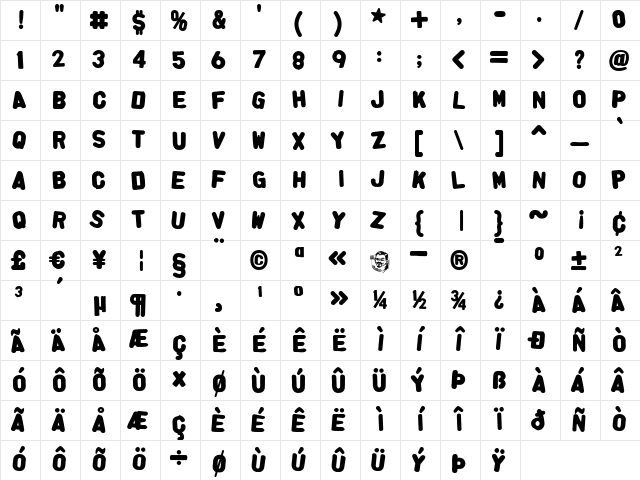
AlphaFridgeMagnetsAllCap Regular
Design Context for AlphaFridgeMagnetsAllCap Typeface
AlphaFridgeMagnetsAllCap offers clean, dependable letterforms without strong stylistic allegiance, making it a practical choice for designers who need flexibility.
Pro Tip: Pair AlphaFridgeMagnetsAllCap with a font of contrasting weight or personality to build a more expressive typographic hierarchy.